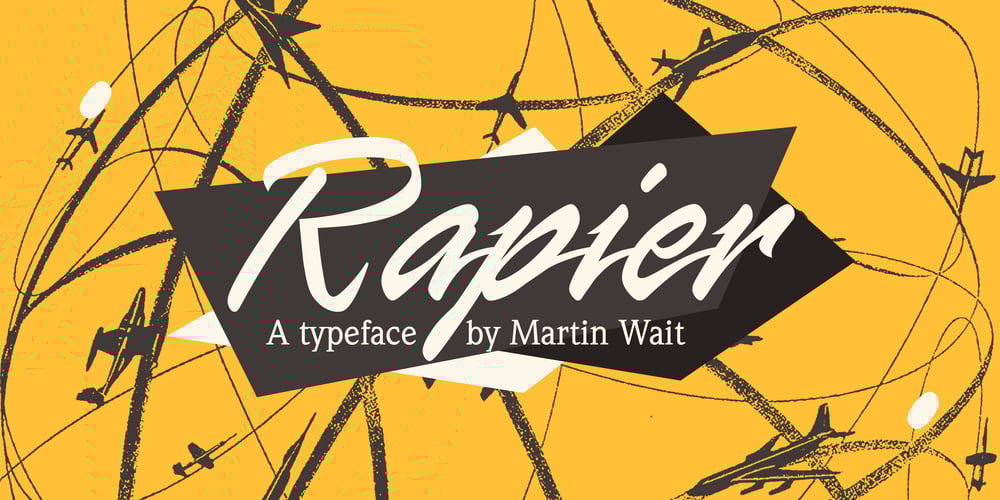
Rapier
Rapier font
Rapier Font Family was designed by Martin Wait and published by ITC. Rapier contains 1 styles and family package options. Rapier, designed by Martin Wait for ITC in 1989, is an impulsive, energetic script font with strong ties to the brush and advertisement typefaces of hte 1940s. The zestful capitals contrast with small, narrow lower case letters, lending the font its dynamism and liveliness. Desinger Wait reached the energetic, almost aggressive feel of Rapier with snappy base forms and especially with ascending strokes. For an optimal look it is advisable to set Rapier’s forms near to one another, so that the ends of the strokes of one figure touch the beginning of the next. Rapier is best used for headlines and short texts.